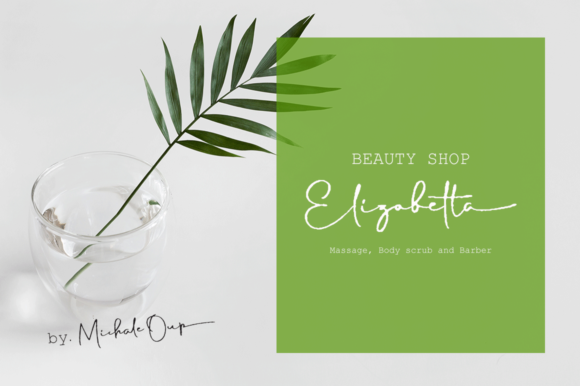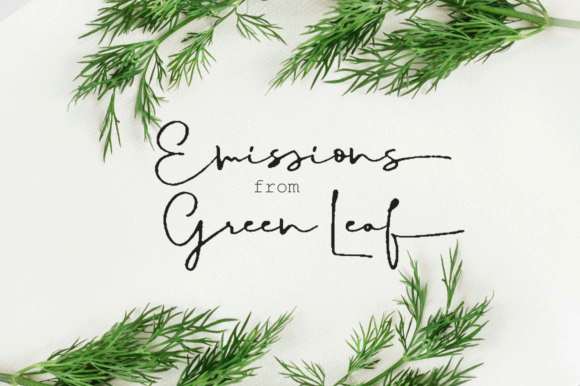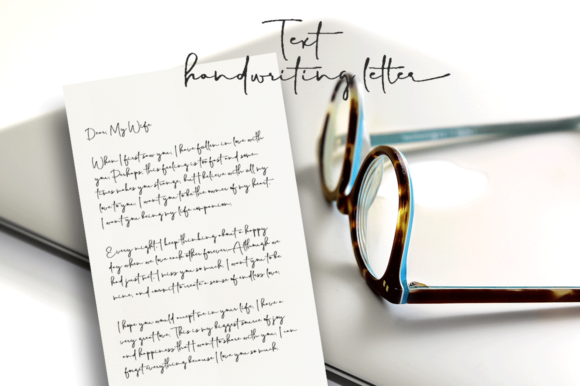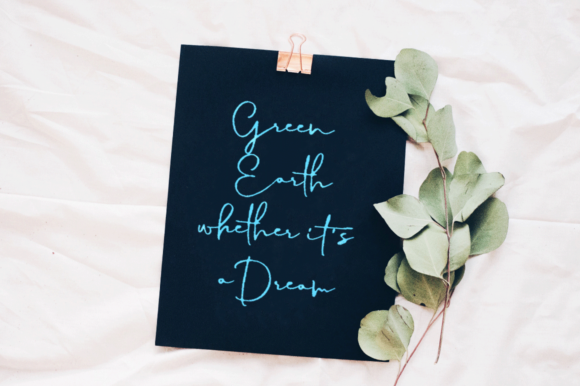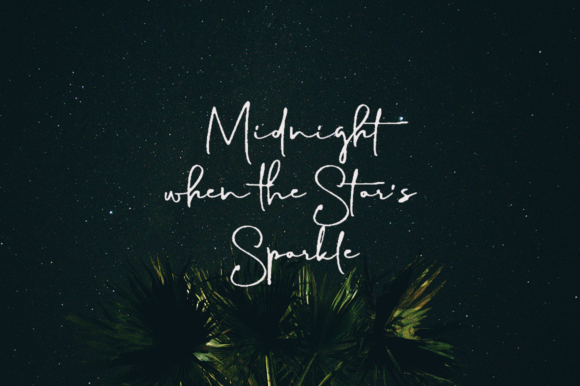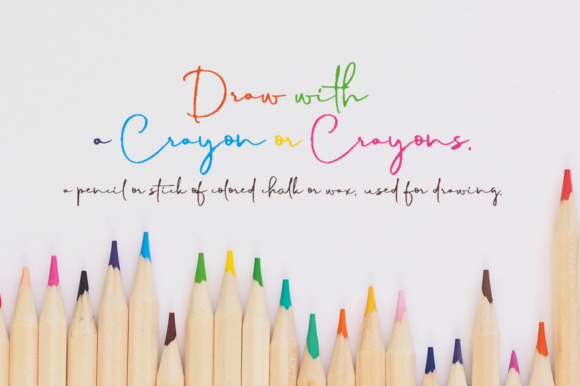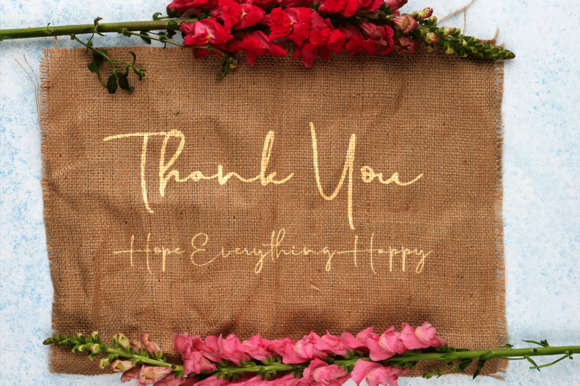
Merry Hamida Font
About Merry Hamida Font
The Merry Hamida is a script that is purely a result of real handwriting and writing by using a liquid ink pen. It has natural characteristics which will give your design an elegant feel.